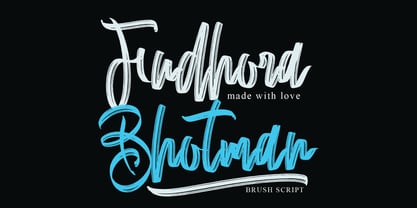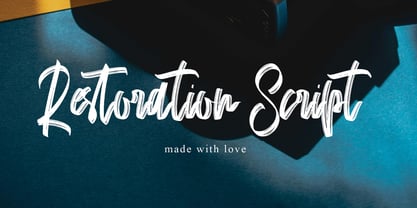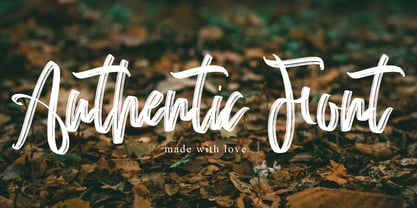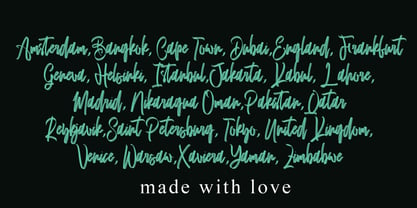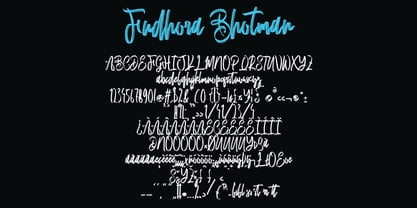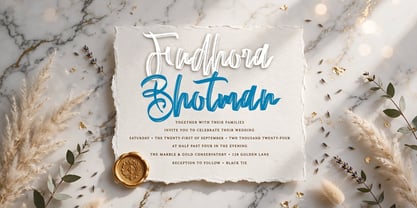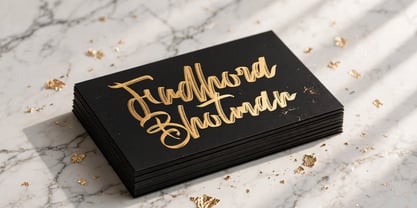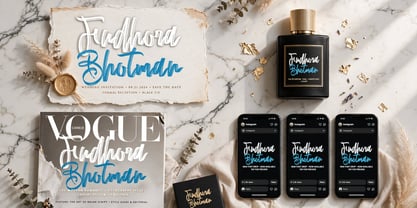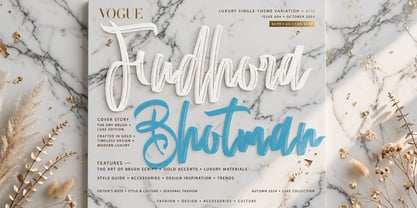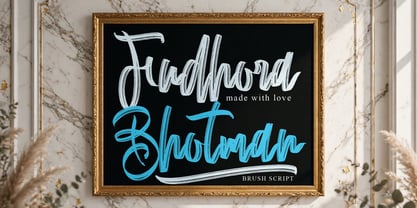
Fudhora Bhotman
by Ayska
The Fudhora Bhotman Font Family was designed by Dhoni Trihatmoko and published by Ayska. Fudhora Bhotman contains 1 styles. More about this family
Presenting Fudhora Bhotman, a harmonious blend of contemporary clarity and the nostalgic charm of handwritten notes. This distinctive typeface emanates an enchanting allure, instantly elevating your creative canvas. Whether seamlessly engrained into your blog, invigorating your digital journal, cast upon your printed invitations or infusing life into your personalized greetings, Fudhora Bhotman is the epitome of typographical flexibility. Treasure the undying allure and creative capacity of Fudora Bhotman, amplifying the charm of your photo albums or your personal living space. With its unique ability to transform average visuals into mesmerizing pieces, this one-of-a-kind font infuses every pixel with captivating beauty. Plunge into the captivating world of Fudhora Bhotman, your guiding light towards a creative haven of memorable compositions. Embark on a journey fueled with artistic inspiration with Fudhora Bhotman, and watch your unique visions morph into striking digital masterpieces.
Designers: Dhoni Trihatmoko
Foundry: Ayska